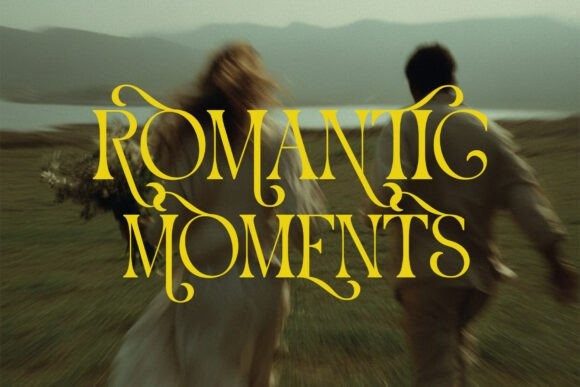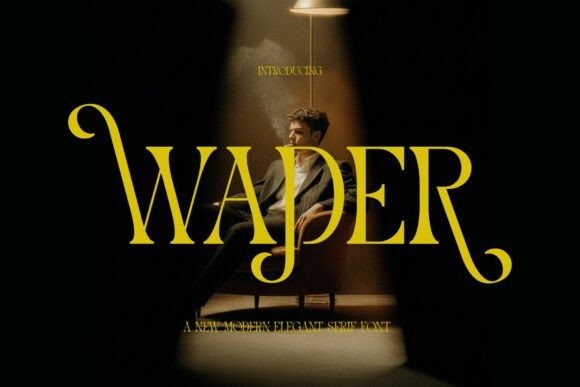
Wader Font
Wader Font is an elegant modern serif font defined by refined ligatures and graceful curves, evoking the timeless beauty of blooming florals and upscale design.With its bold yet feminine character, Wader brings a sophisticated touch to any project—perfect for high-end branding, fashion editorials, floral themes, wedding invitations, and luxury packaging.
Blending the charm of classic serif styles with a contemporary twist, each letter is thoughtfully crafted to feel intentional and elegant. The flowing ligatures add a unique personality while maintaining a clean and polished appearance, making Wader a standout choice for designers seeking elegance with modern flair.